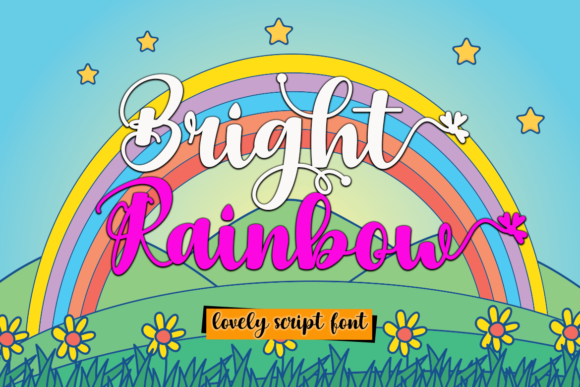
The Ultimate Guide to Bright Rainbow Font: Elevate Your Designs with Elegance and Cheer
I’ll never forget the time I was working on a project for a client’s birthday party invitation. I had a clear vision of a vibrant, whimsical design, but I was struggling to find the perfect font to bring it all together. That’s when I stumbled upon Bright Rainbow, an elegant, cursive, and cheerful handwritten font that instantly captured the essence of the celebration. In this article, I’ll share my experience with Bright Rainbow, its features, and how to make the most of it in your designs.
An Honest Review of Bright Rainbow Font
As a designer, I’m always on the lookout for fonts that can elevate my work and make it more engaging. Bright Rainbow has become a staple in my font library, and here’s why:
- ✨ Elegant and cursive, perfect for projects that require a touch of sophistication
- ✅ Beautifully balanced characters that fit seamlessly into a wide range of designs
- 🌈 PUA encoded, making it easy to access all glyphs and swashes
While Bright Rainbow is an excellent font, it’s not without its quirks. For instance:
- 🤔 Some users may find the font a bit too ornate for certain projects, such as minimalist designs or body text
- ⚠️ The font’s elegance may not be suitable for very casual or playful projects, such as children’s books or comic fonts
The Story Behind Bright Rainbow Font
Bright Rainbow was designed by a team of typographers who wanted to create a font that would bring a touch of elegance and whimsy to designs. Inspired by the beauty of nature and the world around us, they crafted a font that is both sophisticated and playful. The result is a font that is perfect for projects that require a touch of personality and charm.
| Is Bright Rainbow Font suitable for body text? | While Bright Rainbow Font is elegant and beautiful, it may not be the best choice for body text due to its cursive and ornate nature. |